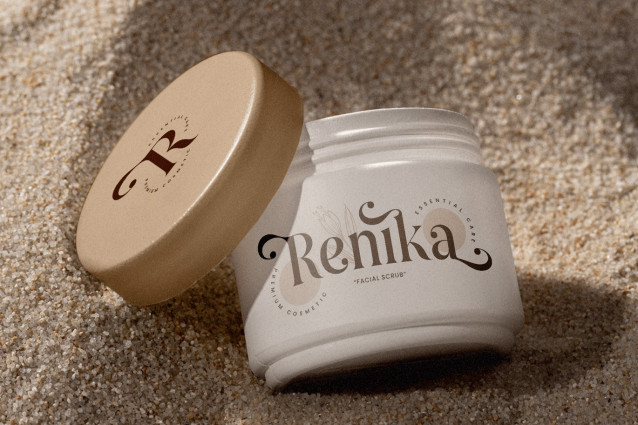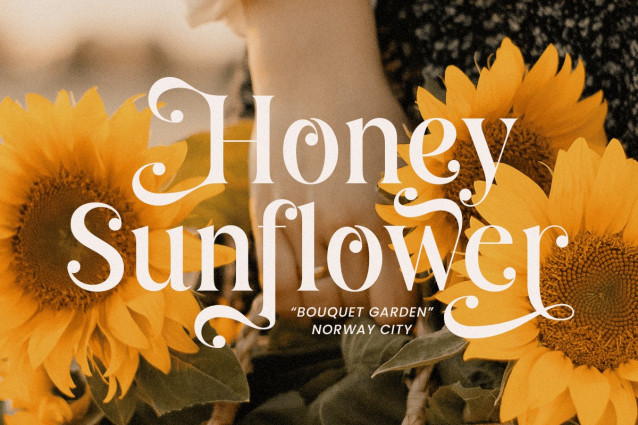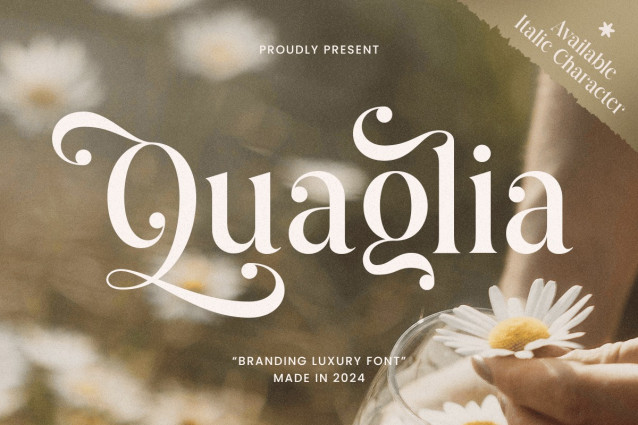
Quaglia Font
Quaglia Font is a luxury font designed to elevate your branding projects with elegance and sophistication. Its refined letterforms exude a sense of exclusivity, making it the perfect choice for high-end logos, fashion branding, or any design that calls for a touch of class. Each letter is carefully crafted to convey luxury and style.
This font is ideal for businesses or creatives seeking a stylish and timeless aesthetic. Quaglia’s luxurious curves and detailed serifs are designed to captivate and impress, ensuring that your brand stands out with distinction and grace. Its versatile nature allows it to be used across a range of design projects, from packaging to social media and editorial layouts.
With its timeless appeal, Quaglia offers an exquisite blend of modernity and classic style. Whether you’re designing for the fashion industry, beauty products, or upscale branding, this font provides the perfect balance between luxury and legibility, making your message shine